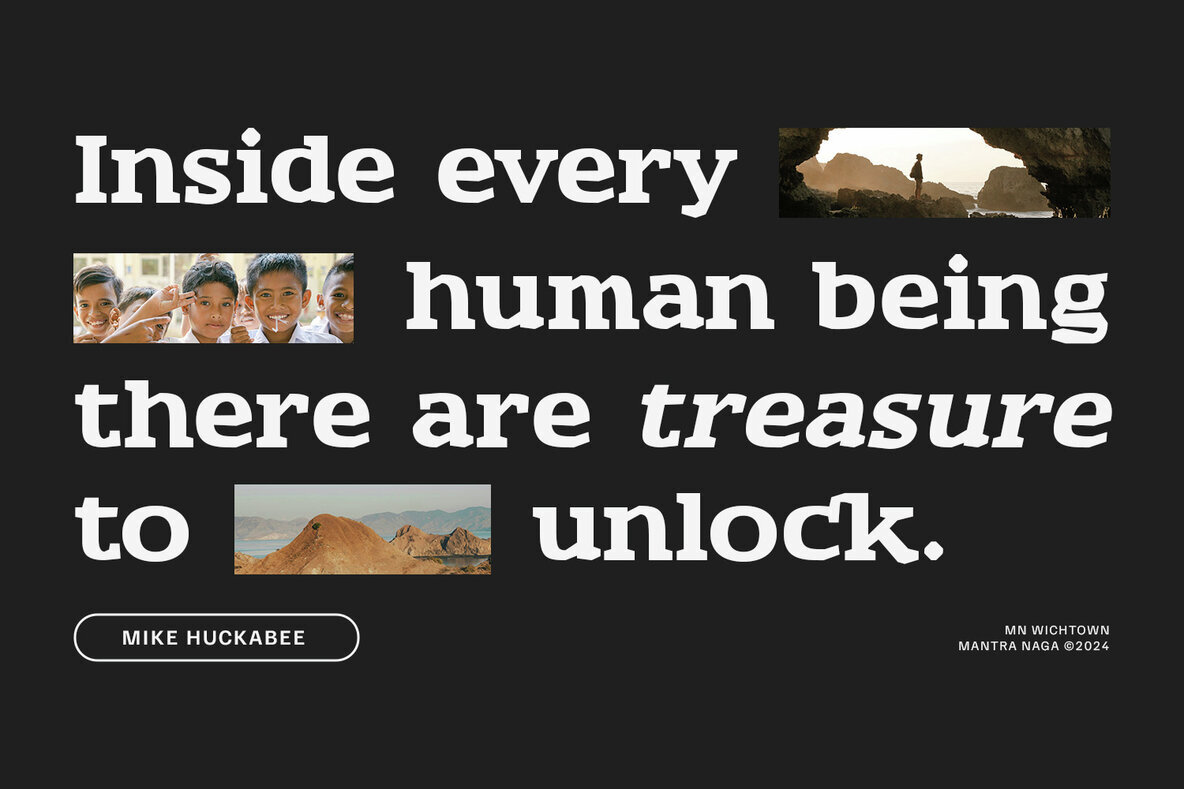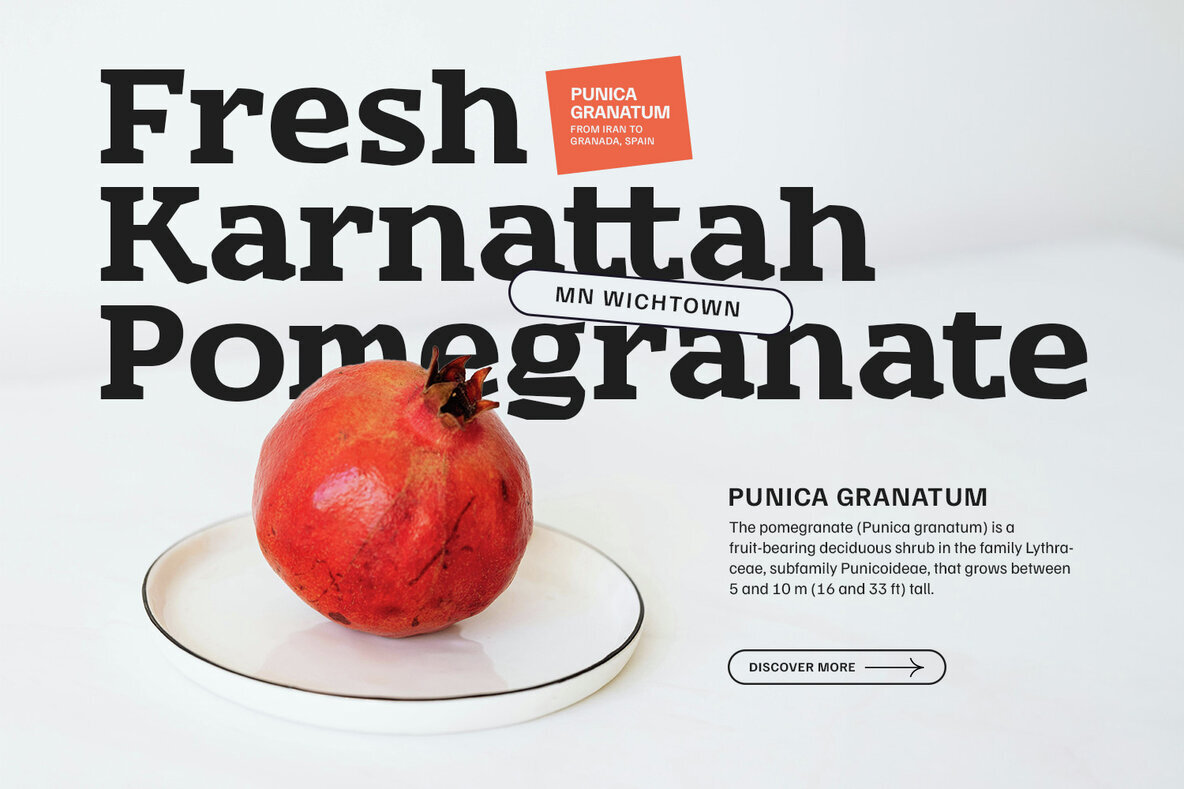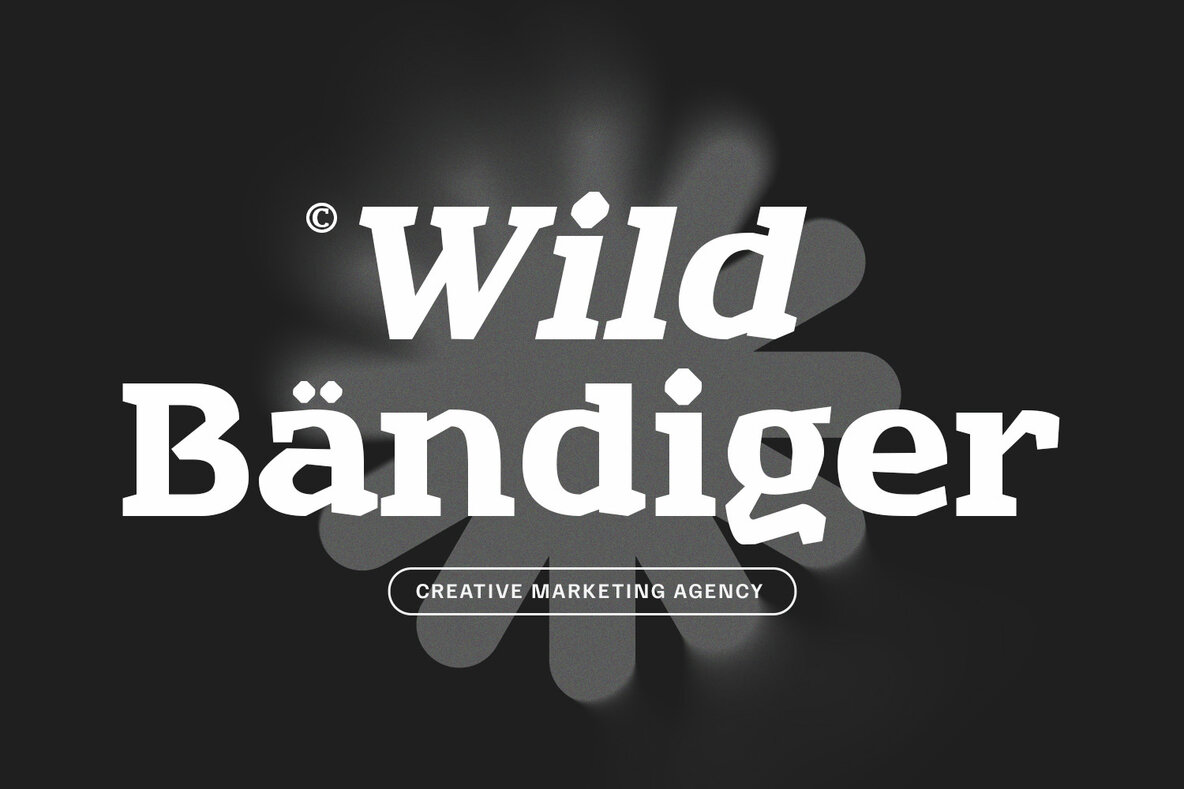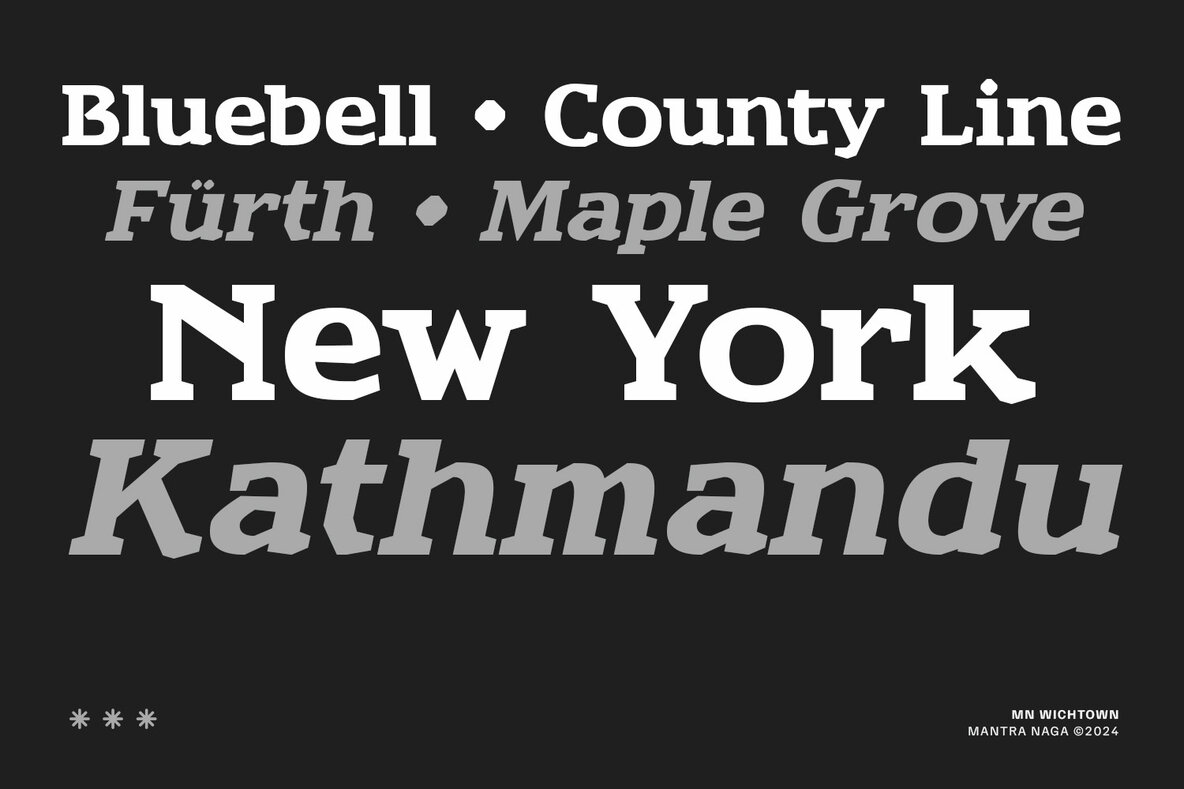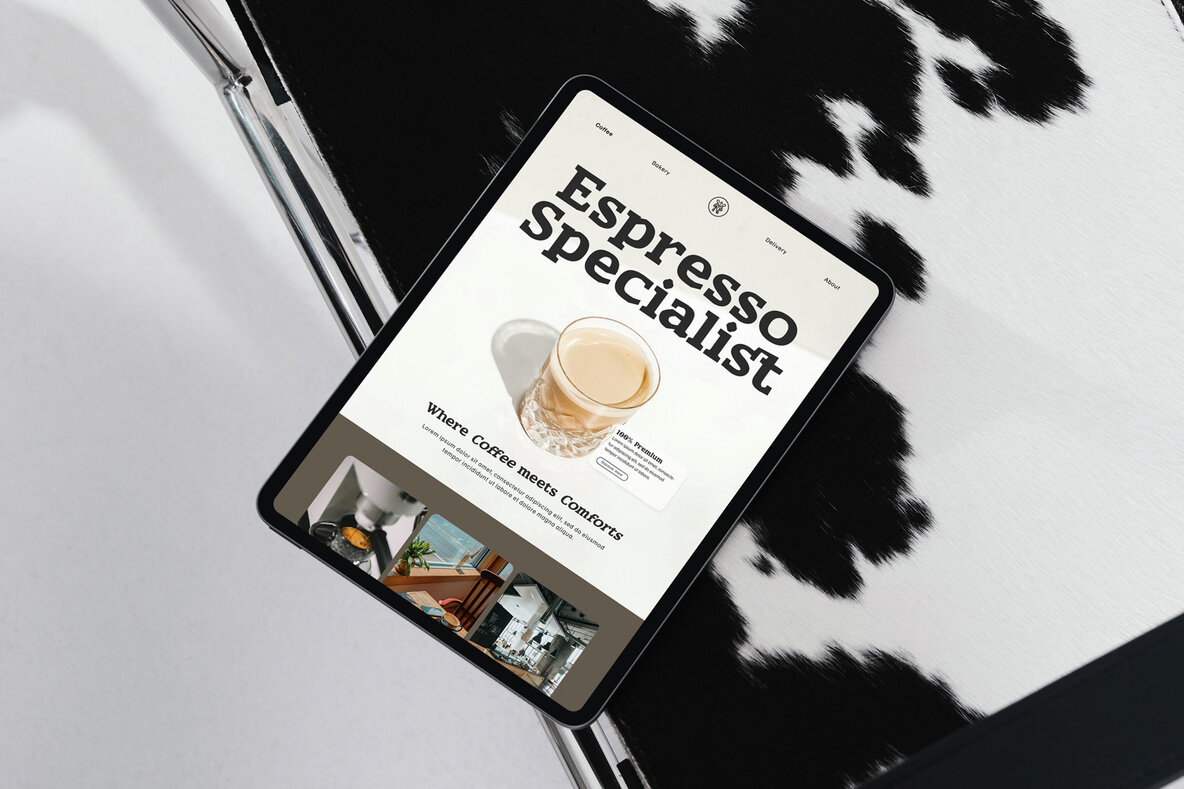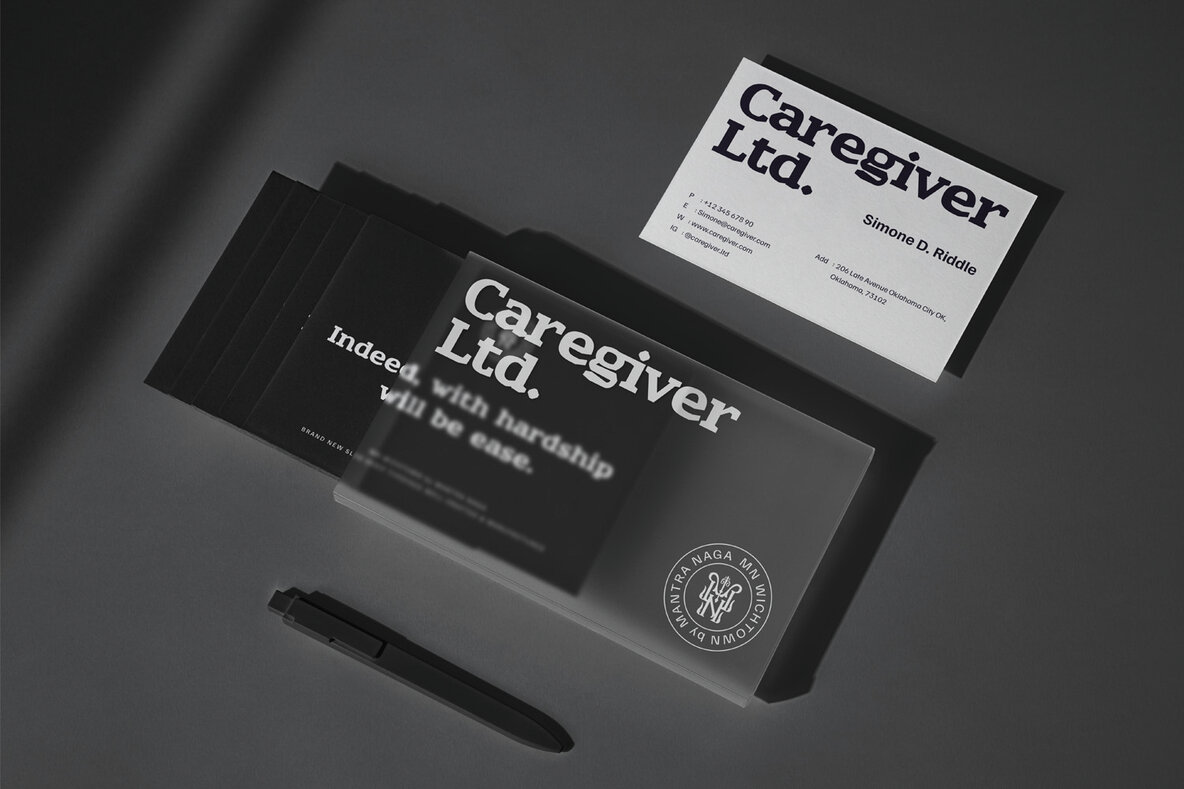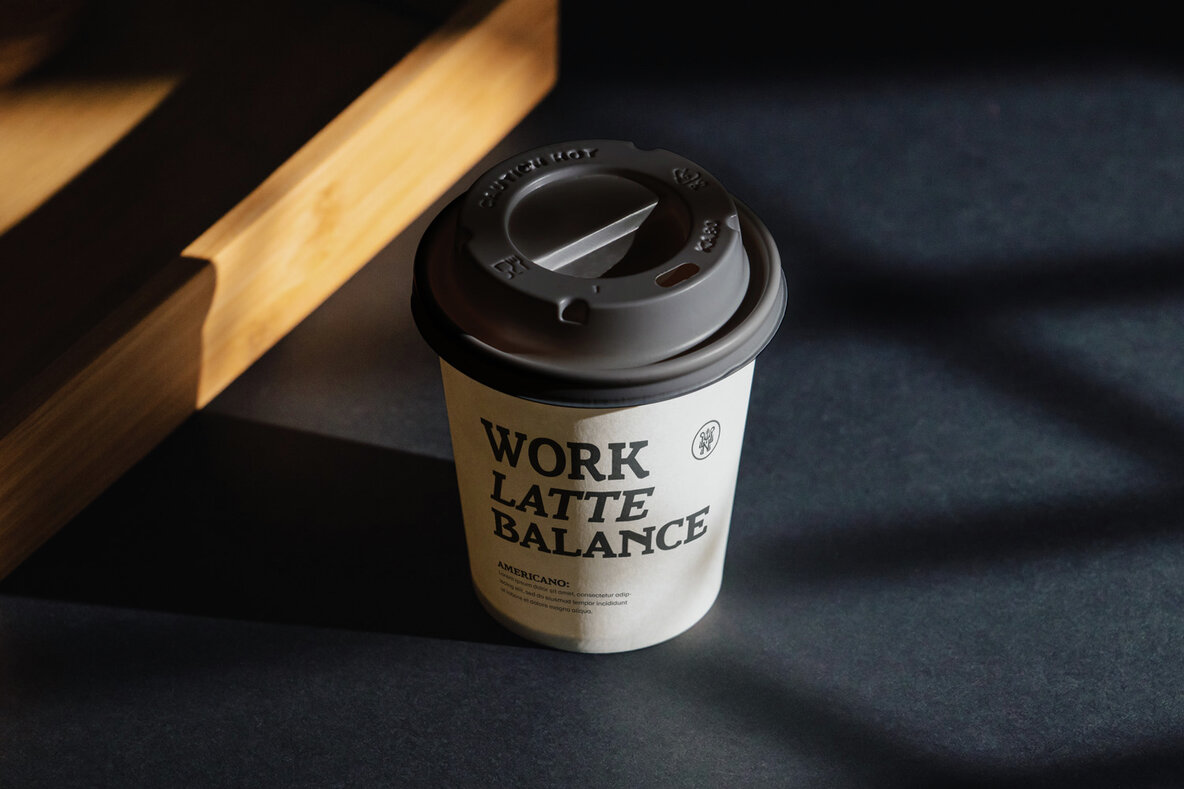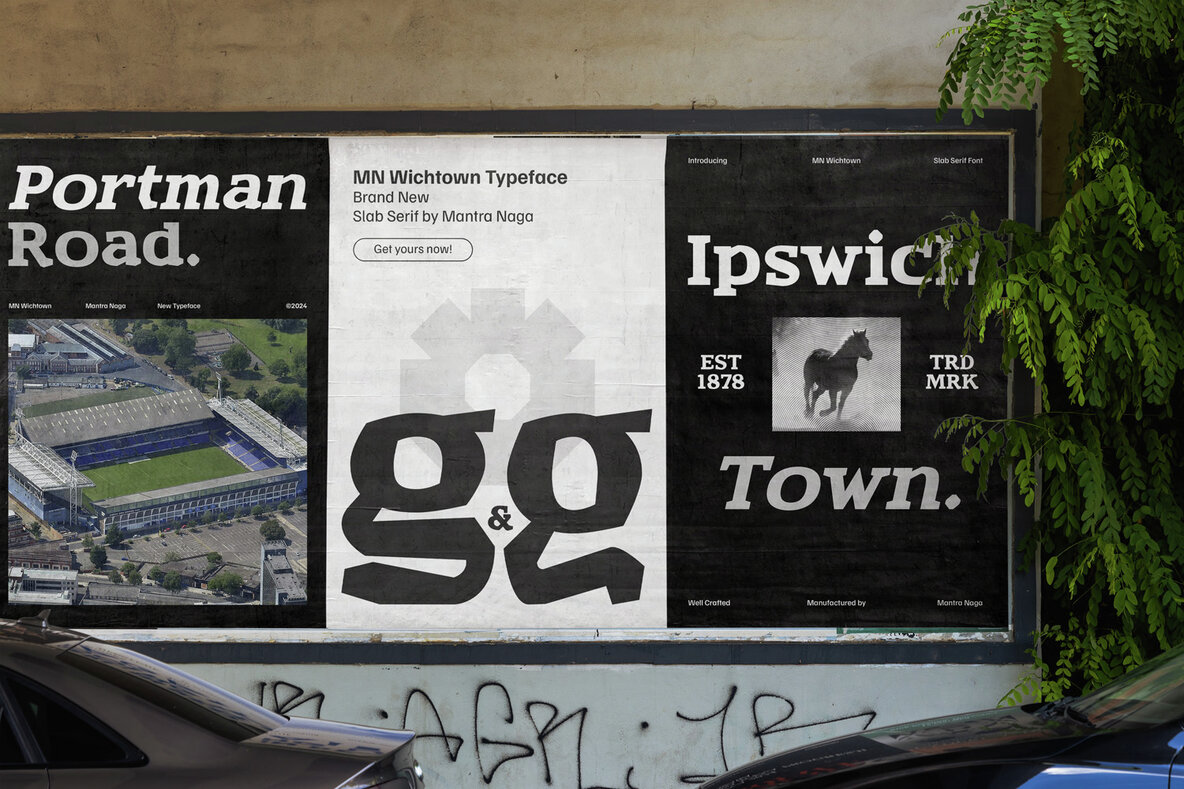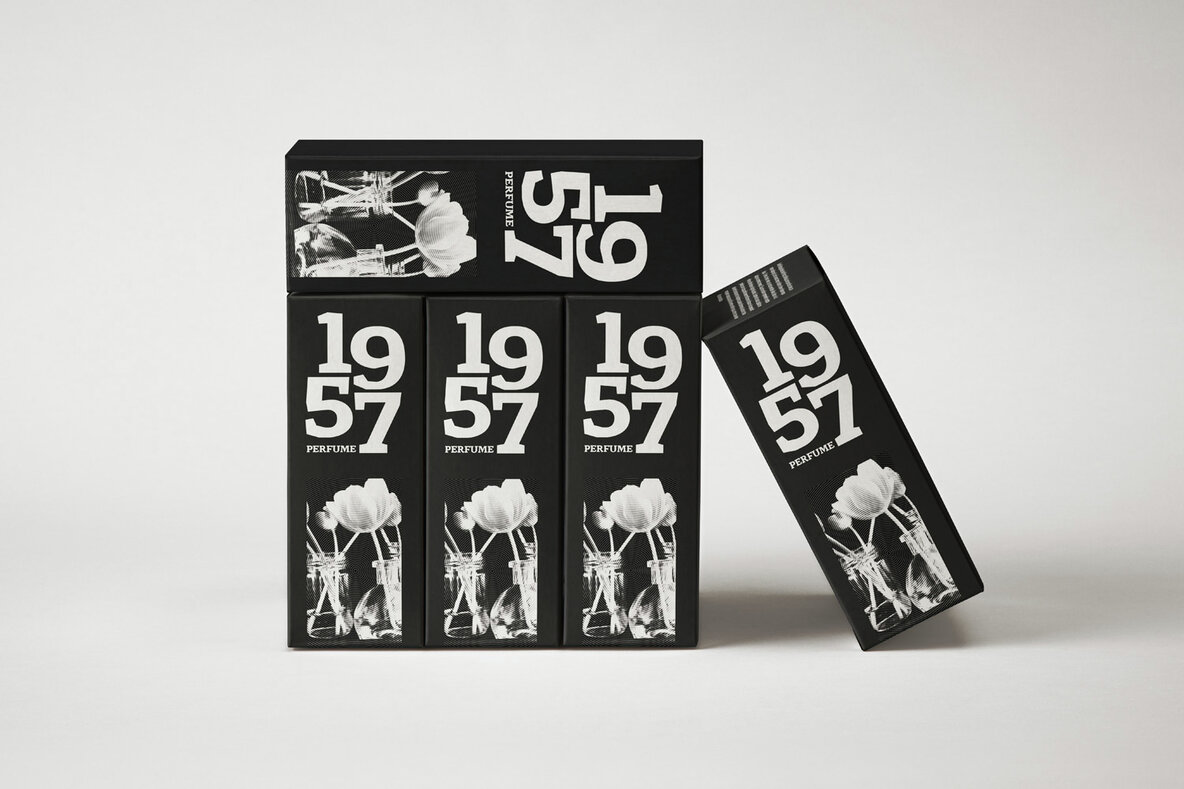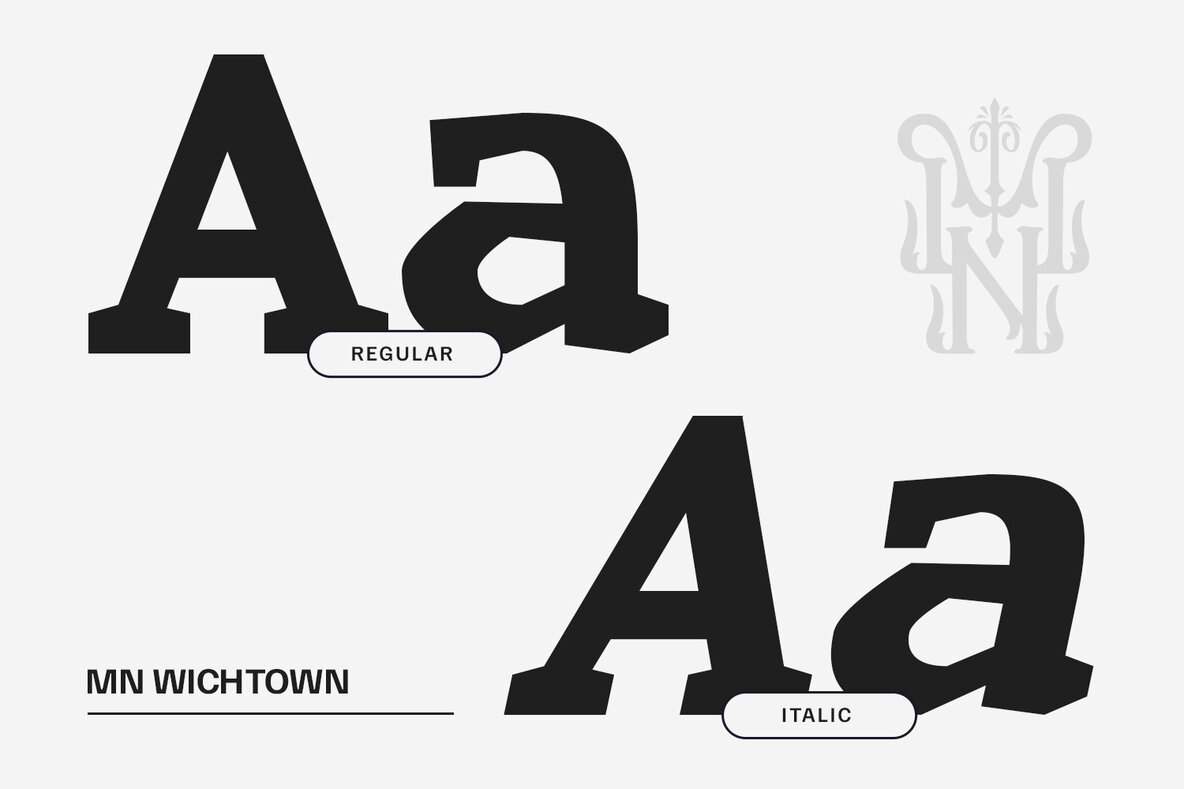
MN Wichtown Font
Introducing MN Wichtown, a bold slab serif typeface that strikes the perfect balance between classic charm and modern elegance. Inspired by the typefaces seen on street signs in historic European cities, MN Wichtown blends the timeless appeal of serif with the clean lines of sans-serif, resulting in a versatile and stylish font. Its strong, authoritative design makes it ideal for headlines, titles, logos, and any display purpose where a bold and impactful look is essential. MN Wichtown brings a sense of stability and sophistication to your projects, providing visual emphasis that demands attention. Perfect for designers seeking a combination of tradition and modernity, this typeface is sure to make a lasting impression.